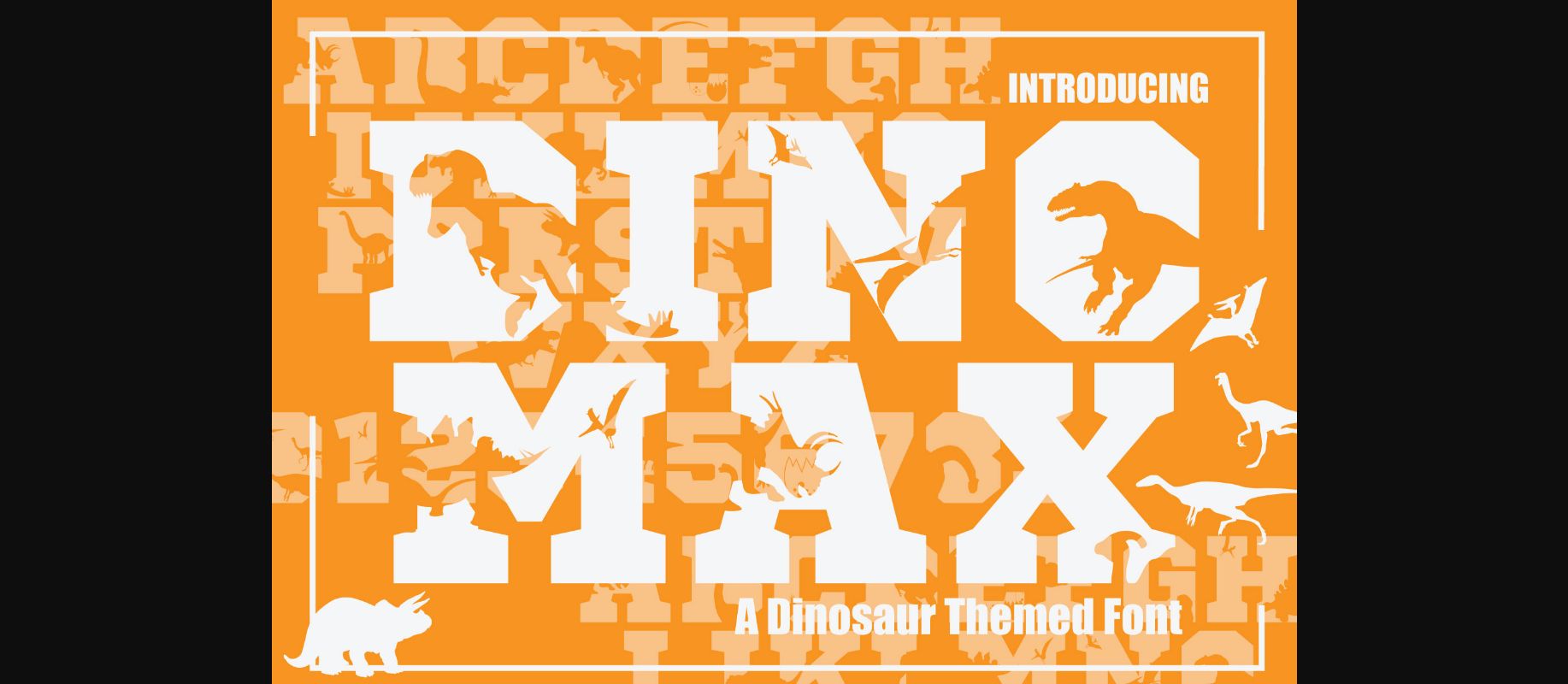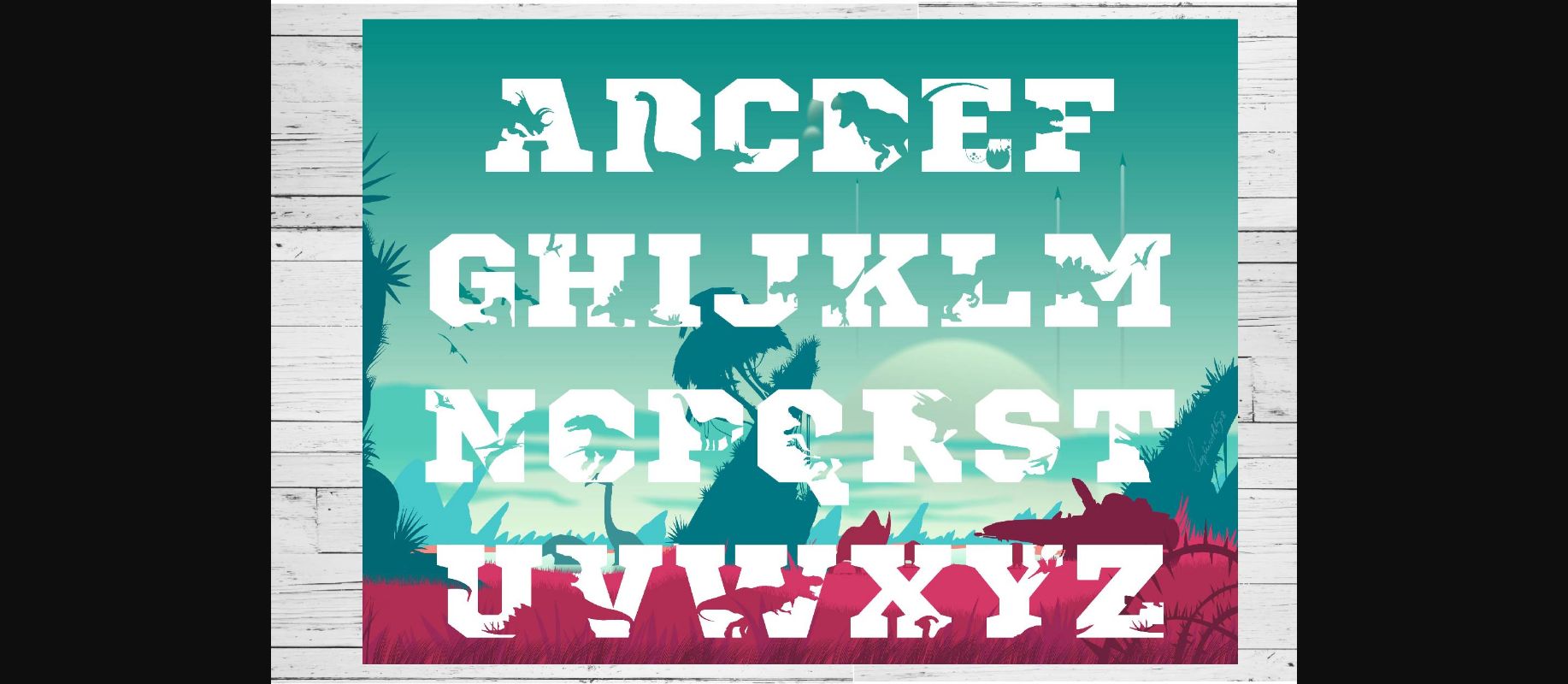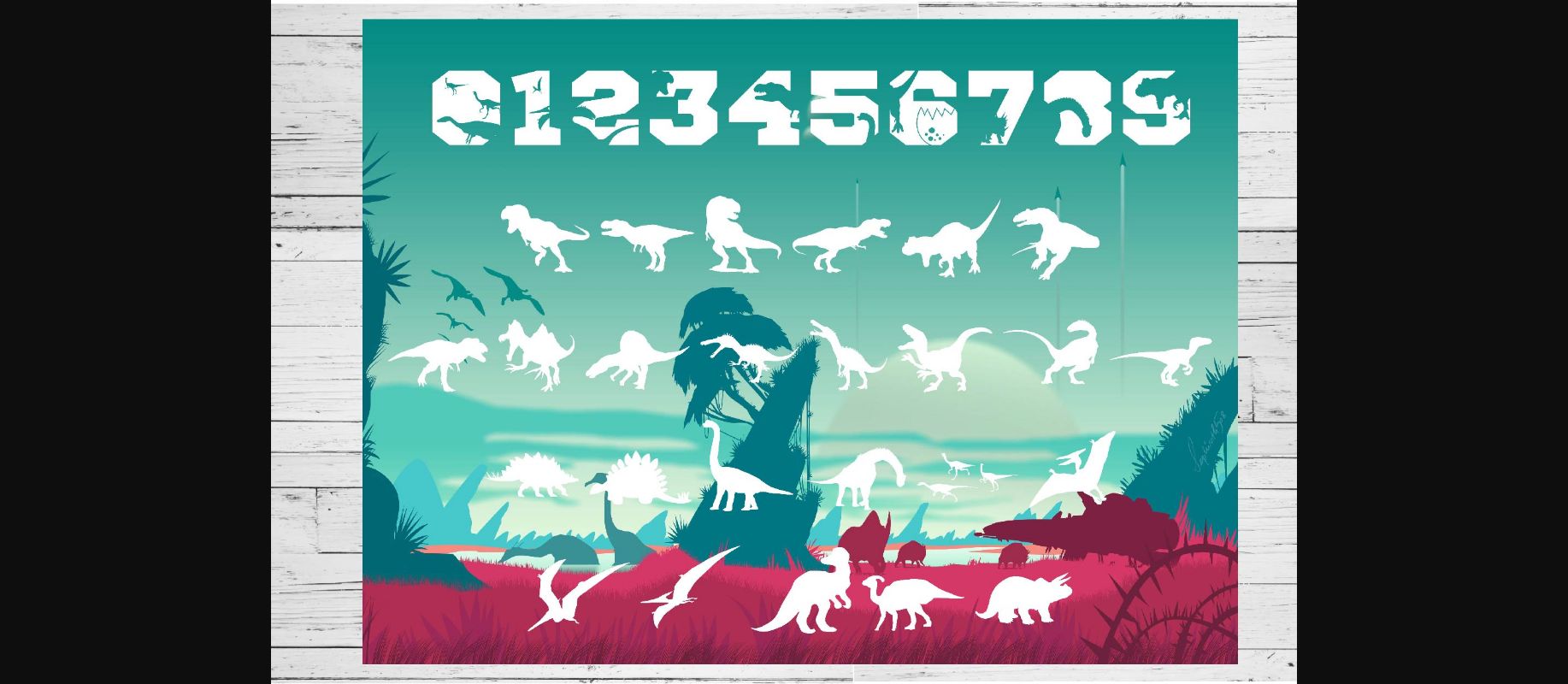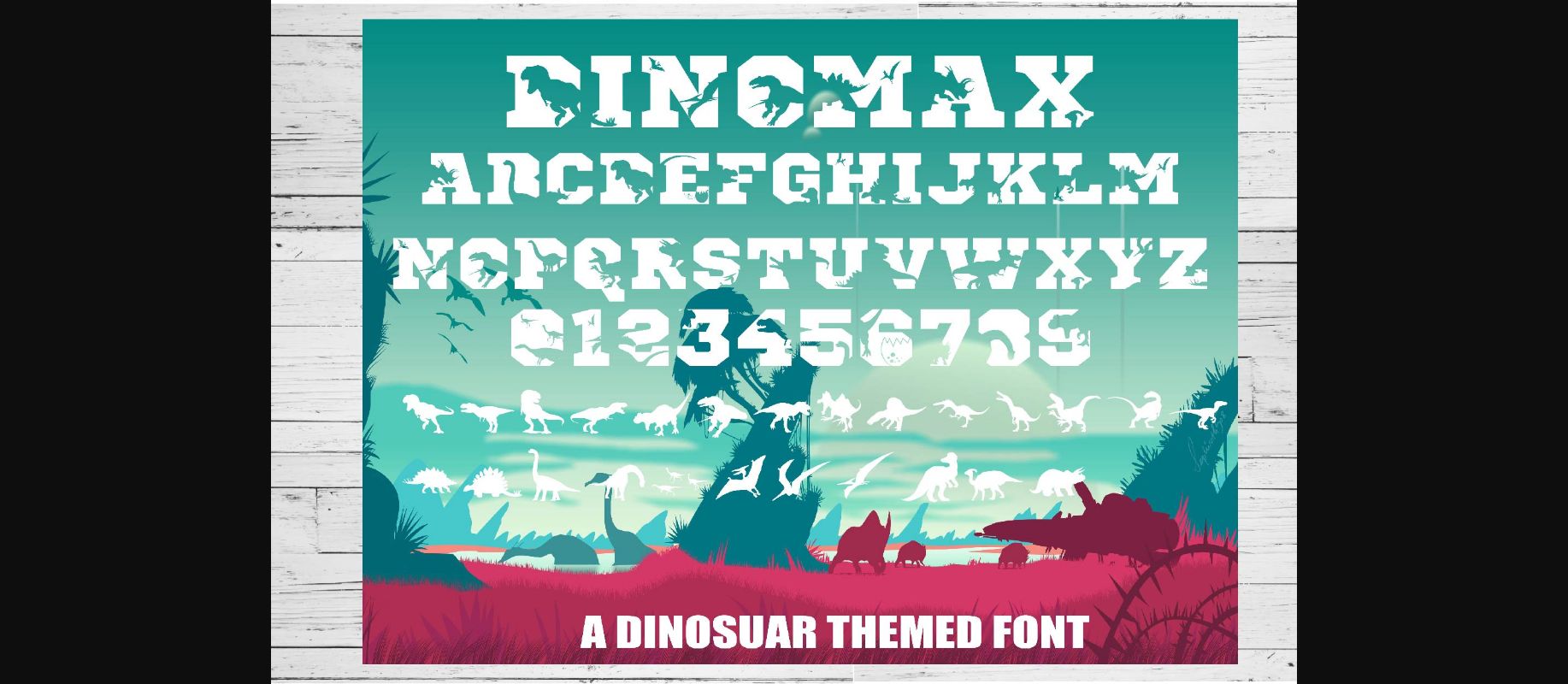
Dinomax Font
About Dinomax Font
Dinomax is a cool and fun looking decorative font. It embodies playfulness and authenticity and is the perfect choice for any children activity or school project. Add this chunky lettered font to your designs and notice how it makes them come alive!